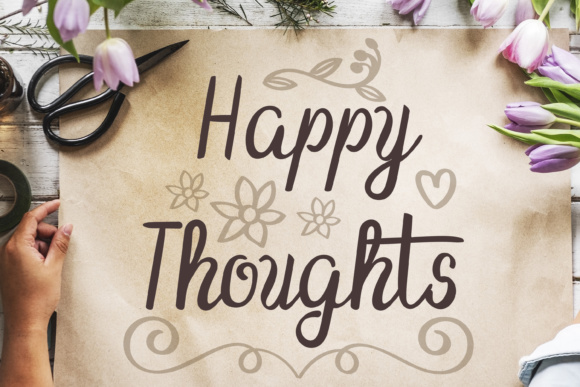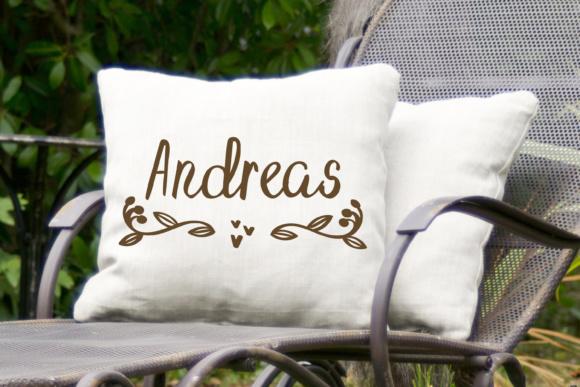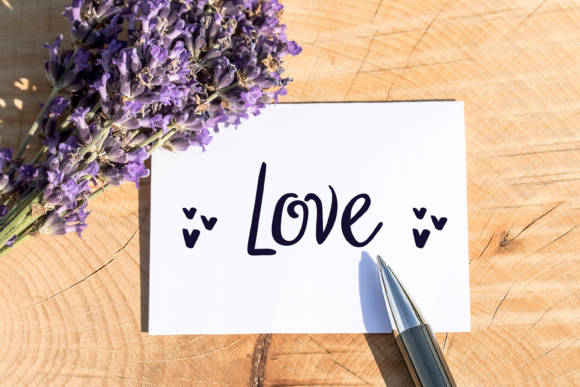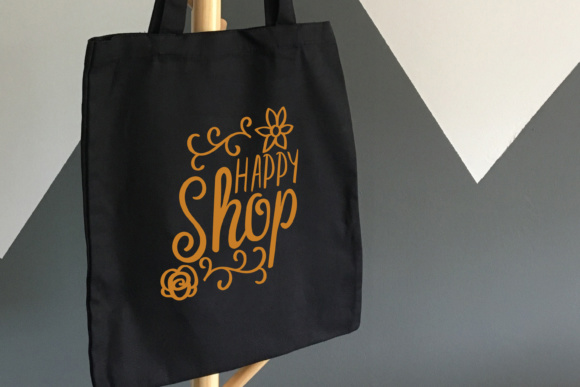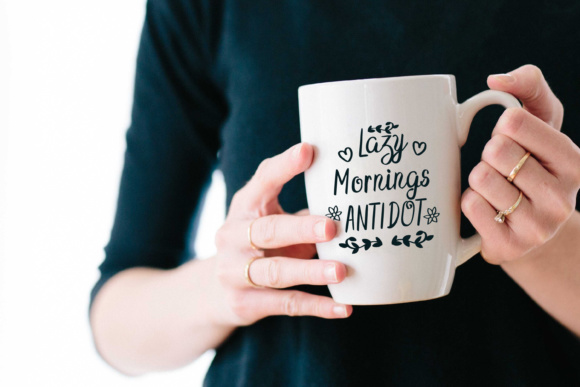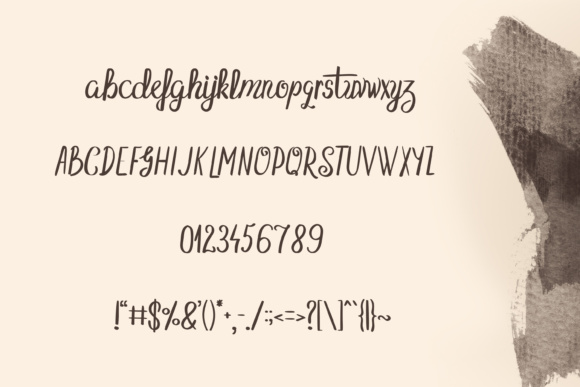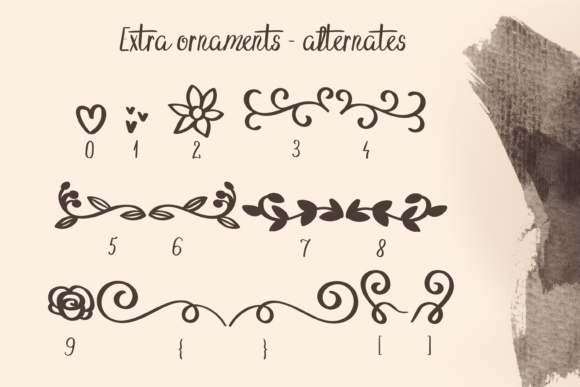
Happy Thoughts Font
About Happy Thoughts Font
The Happy Thoughts is a fancy modern font that comes with extra ornaments to make the perfect design.
It can be used for logos, weddings, apparel or crafting projects.